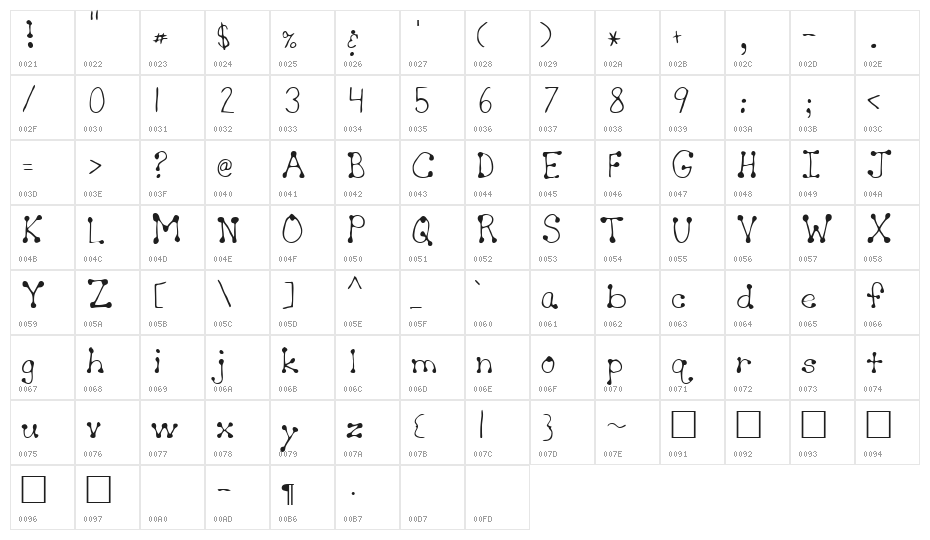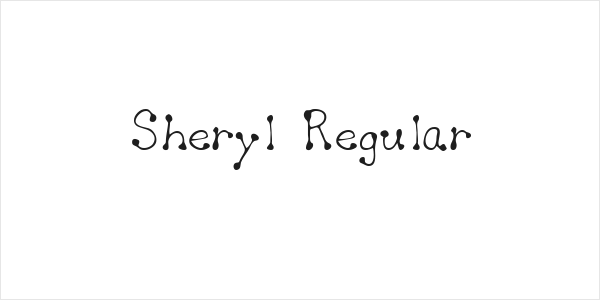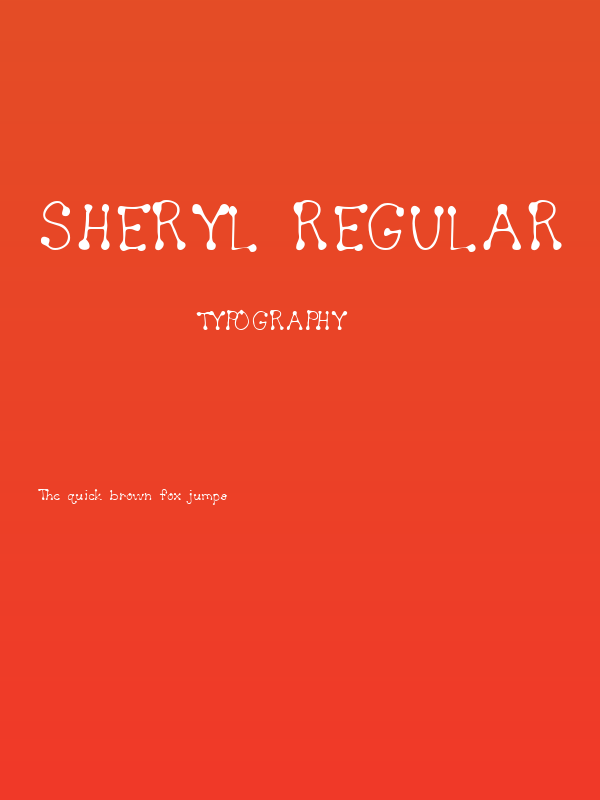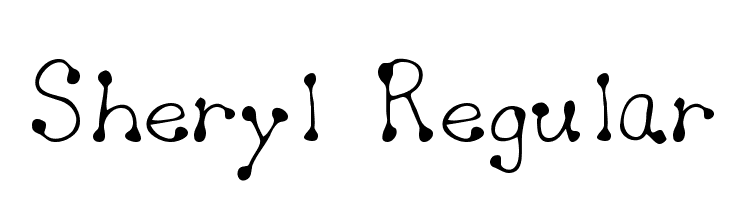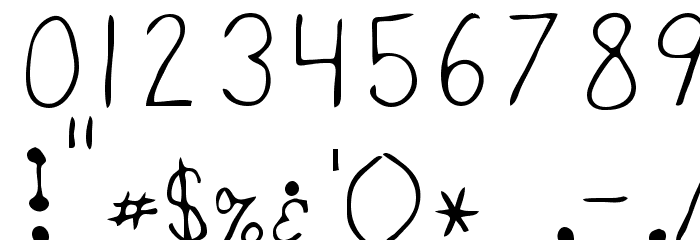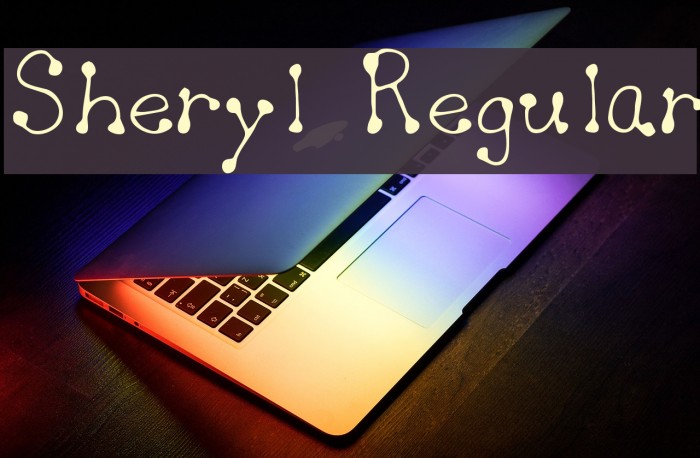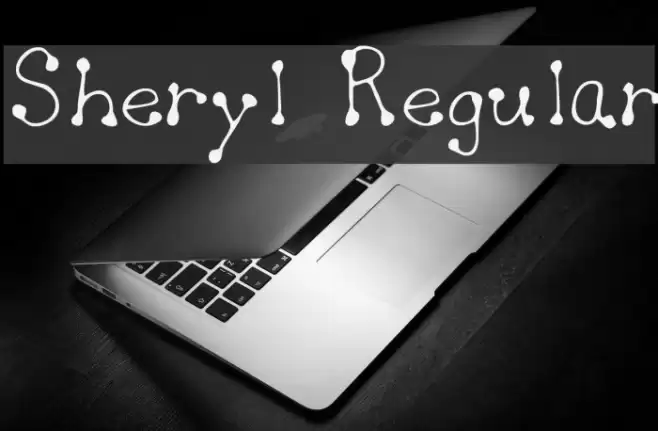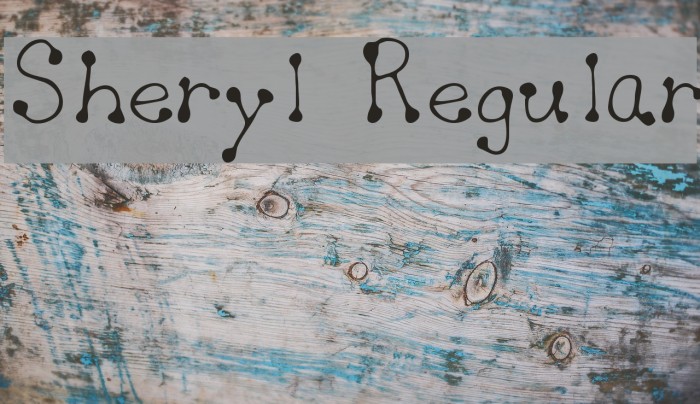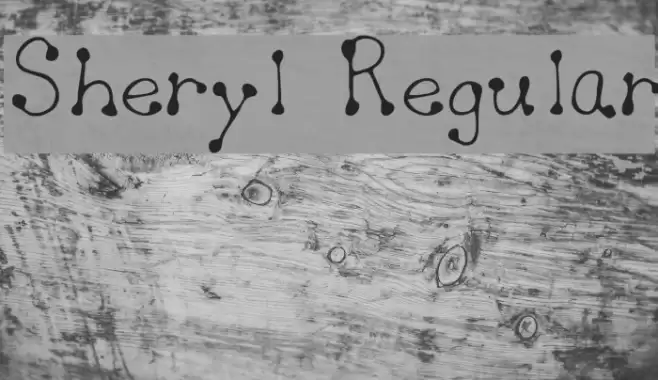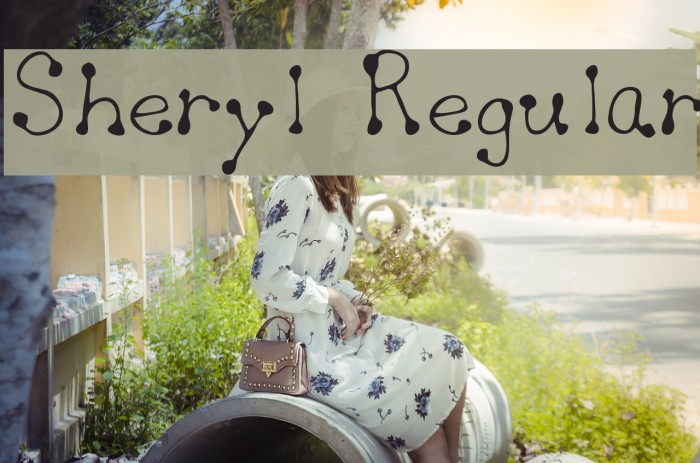
Sheryl Regular Font
This font features a playful and whimsical design, characterized by its unique bulbous terminals and irregular stroke widths. The letters have a hand-drawn quality, with a slightly uneven baseline that adds to its charm. The uppercase and lowercase letters maintain a consistent style, with rounded edges and a friendly appearance. Numbers and special characters follow the same playful aesthetic, making the font suitable for creative and informal applications. Its distinct style makes it stand out, while still being legible and versatile.
| Use Case | Logos, Headlines, Posters |
| Proposed Projects | Ideal for children's books, playful branding, greeting cards, and creative posters. |